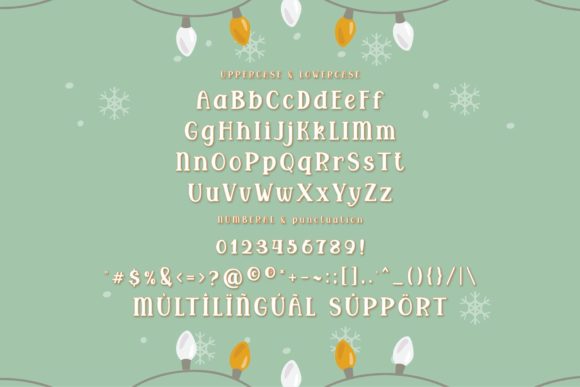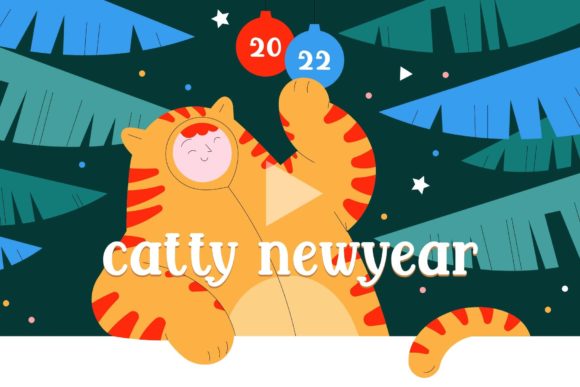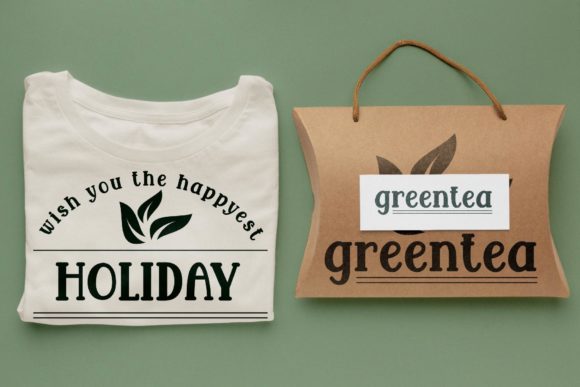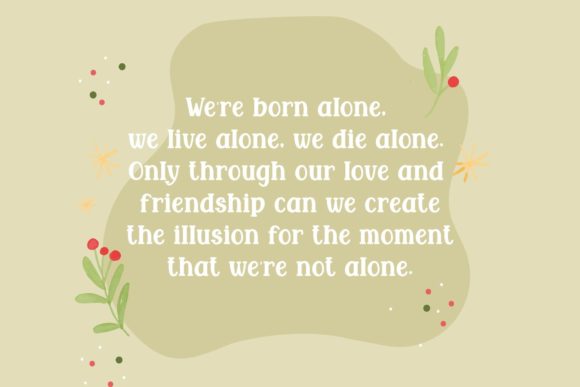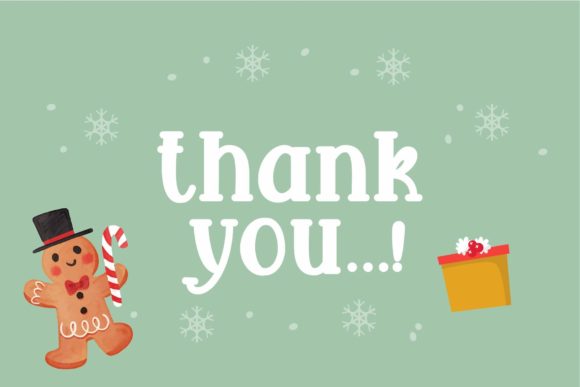
Introduction to Rasdolly Font
Have you ever been working on a creative project and stumbled upon the perfect font that brings your entire concept to life? For designers, finding the right font can make all the difference in elevating a project from good to great. That’s exactly what the Rasdolly Font does – it’s a cute handwritten font that’s perfect for a wide range of applications, from logos and branding to photography and invitations.
As a valuable design resource, the Rasdolly Font offers a high-quality solution for designers looking to add a personal touch to their work. With its versatility and masterful design, it’s no wonder why this font has become a true favorite among creatives. Whether you’re working on a free download or a paid project, the Rasdolly Font is sure to bring a level of sophistication and elegance to your designs.
Key Features of Rasdolly Font
- High-quality design: Rasdolly Font is a premium font designed for creative projects, offering a unique and elegant touch to any design.
- Unique characteristics: Rasdolly Font features a unique blend of modern and classic elements, making it an excellent choice for designers looking for a font that stands out from the crowd.
- Perfect for creative projects: Rasdolly Font is ideal for designers, artists, and writers working on creative projects, such as book covers, magazine layouts, and advertising materials.
Honest Review: Rasdolly Font
I recently came across the Rasdolly Font, and I must say it’s a hidden gem in the world of design resources. As a designer, I’m always on the lookout for high-quality fonts that can elevate my creative projects. The Rasdolly Font definitely delivers.
- High-quality design: The font is beautifully crafted, with intricate details and a unique aesthetic.
- Wide range of uses: The Rasdolly Font can be used for various creative projects, from logos to typography-based art.
⚠️ Limitations:
- Limited font sizes: While the font is beautiful, it’s only available in a limited number of sizes, which might be a drawback for some designers.
- No bold or italic variations: If you’re looking for bold or italic versions of the font, you might be disappointed.
Overall, the Rasdolly Font is a solid choice for designers looking for a high-quality, free design resource. While it has some limitations, its unique aesthetic and wide range of uses make it a valuable addition to any design arsenal.
The Rasdolly Font is suitable for a variety of creative projects, including graphic design, digital art, and typography. It’s also a great resource for designers who want to add a touch of elegance and sophistication to their designs.